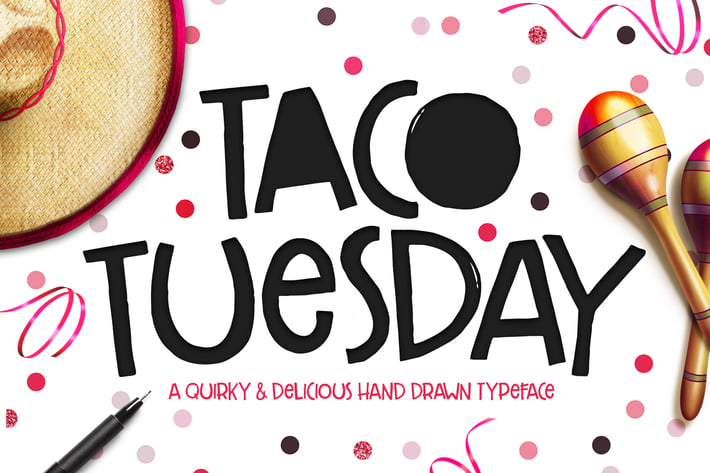
Taco Tuesday Typeface
Meet the adorable, hand-drawn font that looks great on greeting cards, sweet on mugs and works seamlessly on just about any hand lettered project that comes your way. :)